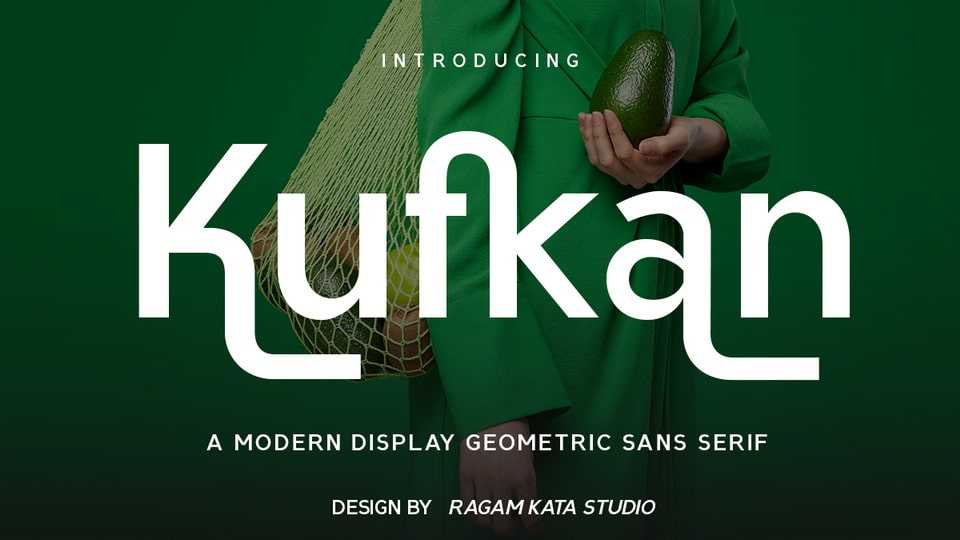
Download Kufkan font, a modern geometric sans serif typeface crafted for standout branding and visual storytelling. With sleek lines and balanced letterforms, Kufkan brings minimal elegance to every design.